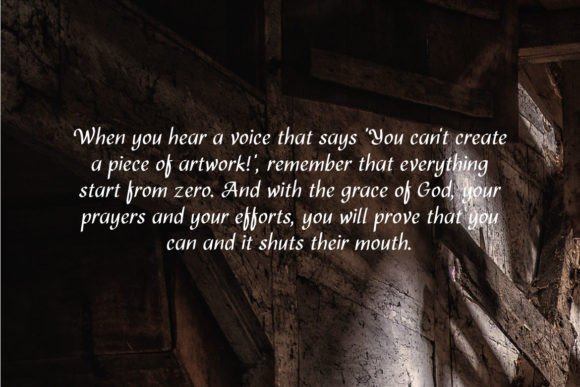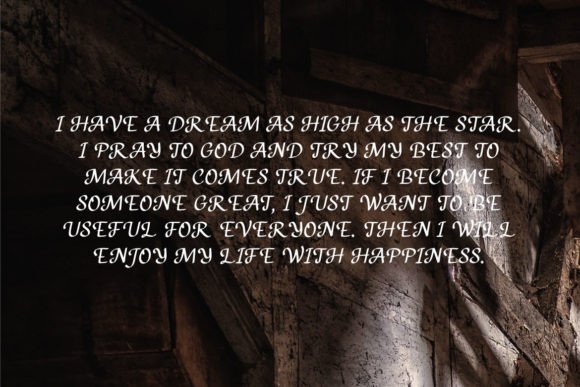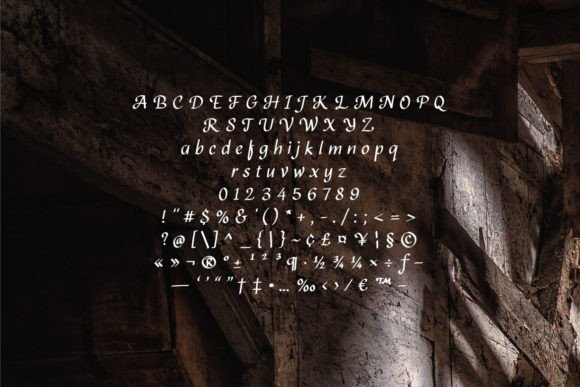
The Art of Unique Design: Unveiling the Art House Font
Have you ever been working on a project and suddenly, a spark of creativity strikes, and you envision the perfect font to bring your design to life? For designers, this moment is a thrill like no other. It’s the moment when the right font can make all the difference between an ordinary design and an extraordinary one. And that’s exactly what the Art House Font promises to deliver.
Art House Font is a flowing handwritten font that exudes elegance and sophistication. Its unique style is both timeless and distinct, making it perfect for designers who want to create spectacular designs that stand out from the crowd. Whether you’re working on a branding project, a poster, or a social media campaign, the Art House Font is an invaluable asset that can elevate your design to new heights.
Art House Font Key Features
- Font Family: Art House comes in 6 unique styles, each with its own distinct character and flair.
- Unique Characteristics: Features a unique blend of modern and vintage elements, with intricate details and ornaments that add a touch of sophistication to any design.
- Kerning and Ligatures: Includes advanced kerning and ligature pairs to ensure smooth text flow and professional-looking typography.
Designer Review: Art House Font
Art House Font is a unique, hand-drawn font that I’ve been experimenting with. On the positive side, ✨ it has a charming, artisanal feel that’s perfect for creative projects, like book covers, invitations, and posters. The font’s imperfections add a touch of humanity to the text, making it stand out from more polished fonts.
The font’s best feature is its versatility. ✨ It comes in a range of weights, from light to bold, allowing designers to mix and match styles to create a cohesive look. The font also includes a range of ligatures and swashes, making it easy to add flair to your designs.
- ⚠️ Limited character set: The font only includes a basic set of characters, which can make it difficult to use for longer texts.
- ⚠️ Kerning issues: At larger font sizes, the font’s irregularities can cause kerning issues, which can be distracting.
- ⚠️ Limited language support: The font is primarily designed for English, making it less suitable for multilingual projects.
Overall, Art House Font is a great choice for designers looking for a unique, creative font. While it has some limitations, its charm and versatility make it a great addition to any design project.
Getting the Most Out of Art House Font
Experiment with different font sizes, colors, and styles to find the perfect balance for your design. Use Art House Font in conjunction with other design elements, such as images, textures, and graphics, to create a cohesive and visually appealing design.
Art House Font is ideal for use in:
• Luxury branding and marketing materials
• High-end packaging and product design
• Elegant websites and web applications
• Sophisticated business presentations and reports